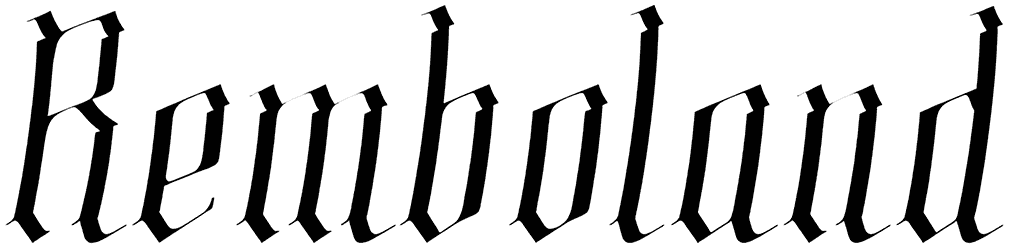
Remboland Font
The cool visual of this black letter font has the potential to throw a charming and noble vibe into your creative design. The Remboland font has almost all characters in a tall and strong mood. You can use this gothic font to make a historical movie poster, a rock music album design, or so forth, and capture a lot of attention.